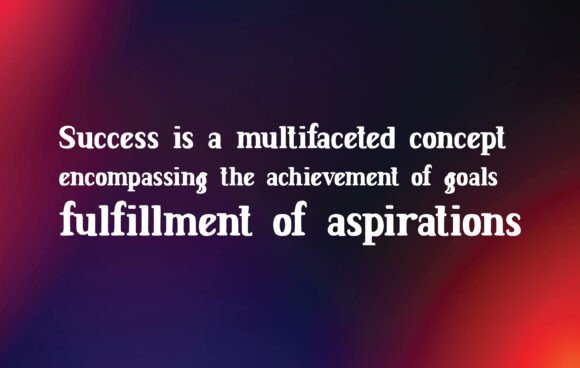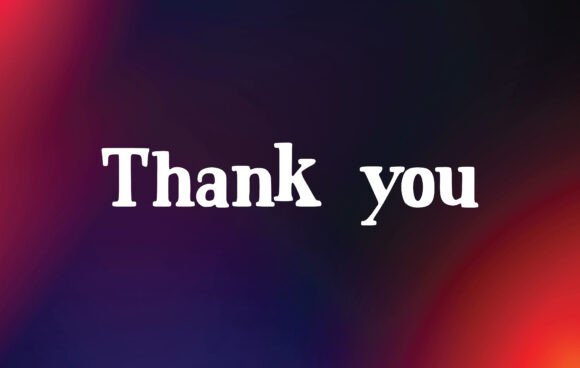
Introduction to Kailani Font
Have you ever found yourself stuck in a creative rut, unable to bring your vision to life? Perhaps you’re brainstorming ideas for a new magazine, or designing a wedding invitation that truly captures the essence of the special day. Whatever your project, the right font can be the difference between a good design and a great one.
Enter the Kailani Font, a high-quality design resource that’s sure to elevate your creative project to new heights. With its clean lines and transparent background, this font is perfect for a variety of uses, from magazine headlines to social media graphics.
Key Features of Kailani Font
- High-quality, professional design suitable for creative projects
- Comes with a transparent background, allowing for easy customization
- Includes a range of font styles, including regular and bold, with varying font sizes and resolutions
- Designed to be versatile and suitable for various design applications, including digital and print media
Honest Review: Kailani Font
I recently stumbled upon the Kailani Font, and I must say it’s been a game-changer for my creative projects. The font is a high-quality design resource that offers a unique touch to any layout or design.
Here are some things that work well: ✨ The font’s transparent background makes it incredibly versatile and easy to use. It’s also available for free download, which is a huge bonus for designers on a budget. I’ve been able to use it in a variety of creative projects, from branding to editorial design.
The Kailani Font’s elegant and modern design makes it perfect for projects that require a touch of sophistication. I’ve used it to create eye-catching headings and titles that really pop on the page.
However, there are a few limitations to consider: ⚠️ The font may not be suitable for projects that require a bold or edgy look. Additionally, some users may find the font’s transparent background to be a bit tricky to work with, especially if they’re not familiar with design software.
Overall, I’m really impressed with the Kailani Font. It’s a high-quality design resource that’s perfect for designers looking to add a touch of elegance to their creative projects. I highly recommend giving it a try!
- Perfect for: branding, editorial design, creative projects
- Transparent background for versatility
- Elegant and modern design
Common Use Cases for Kailani Font
The Kailani Font is perfect for a variety of design projects, including logos, business cards, and social media graphics. Its high-quality design and transparent background make it easy to use in a range of creative applications.
Can I use the Kailani Font with a transparent background?
Yes, the Kailani Font supports transparent backgrounds, making it perfect for use on images or graphics with a transparent or semi-transparent overlay. This feature allows you to create visually appealing designs with a seamless integration of text and graphics.
Project 2: Minimalist Quote Poster
Design a modern and minimalist quote poster using the Kailani Font. This font’s clean design will make your quote stand out.